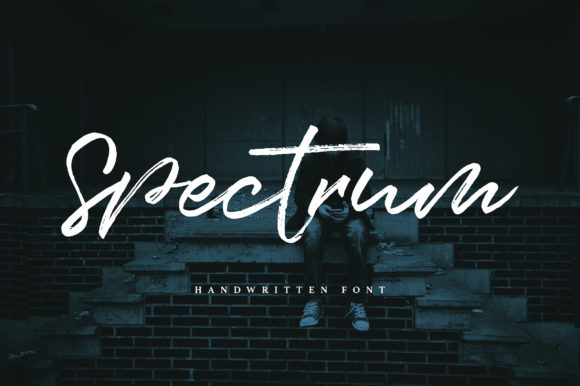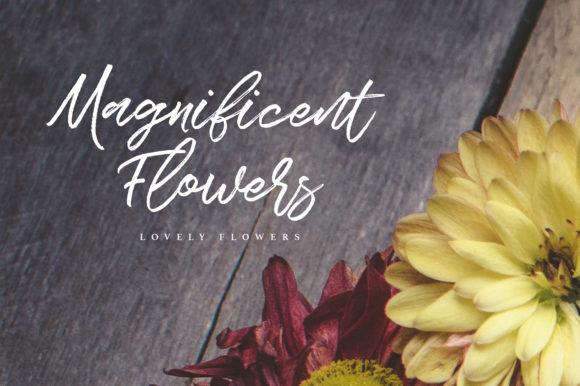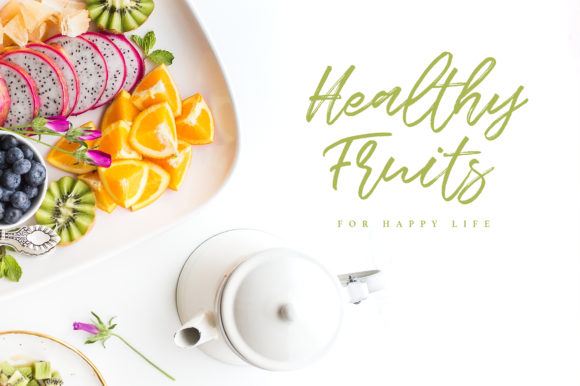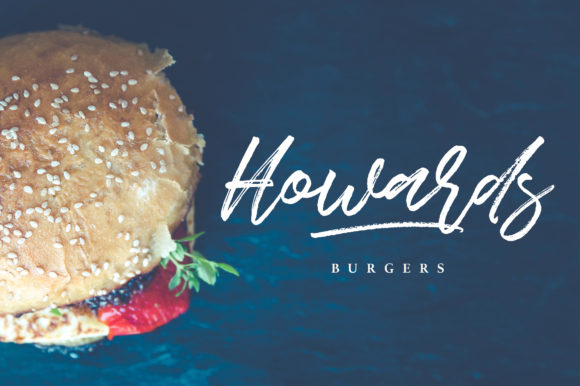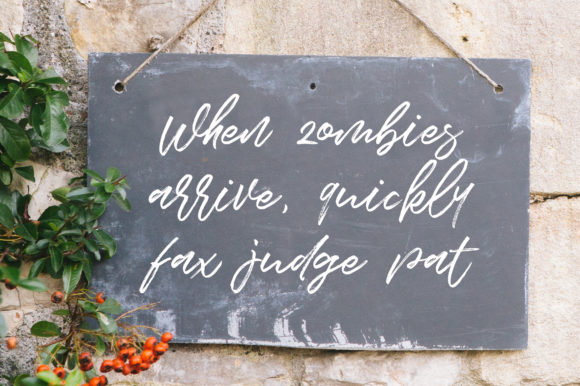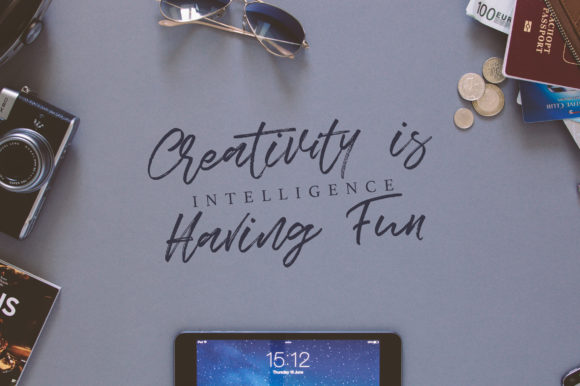
HomeScript FontsSpectrum Font Script Fonts Spectrum Font FacebookTwitterPinterestWhatsApp Spectrum Font Poster 2 Spectrum Font Poster 3 Spectrum Font Poster 4 Spectrum Font Poster 5 Spectrum Font Poster 6 About Spectrum Font Spectrum is a modern and simple script with an authentic twist. Get inspired by its unique charm. DOWNLOAD NOW People also explored Rattini Signature Font Jathselim Font Kultur Font Southside Font Bluehonest Font Ending Scene Font Aphotic Font Spooky Ghostly Font Tanyong Kids Lofu Font 154 0 TagsSpectrum Font Previous articleRanjally FontNext articleAmeliana Script Font LEAVE A REPLY Cancel reply Comment: Please enter your comment! Name:* Please enter your name here Email:* You have entered an incorrect email address! Please enter your email address here Website: Save my name, email, and website in this browser for the next time I comment. Personal Use Free Rheiborn Personal Use Free Read more about this font Heart Memory Personal Use Free Read more about this font Browie Personal Use Free Read more about this font Zelega Zenega Personal Use Free Read more about this font BLOG Where to Buy American Fonts Online in 2024 Where to Buy American Fonts Online: The Ultimate Guide for 2024 Looking for the perfect American font to elevate your design projects? You're in the... Top 7 Google Fonts Alternatives for Faster and Privacy-Friendly Web Design (2025) Using Fonts in Digital Marketing: Tips to Strengthen Your Brand Identity Best Fonts for YouTube Videos: Make Your Thumbnails Stand Out